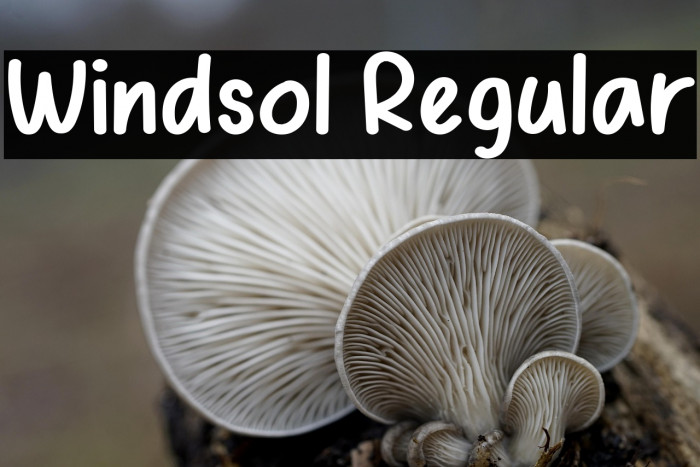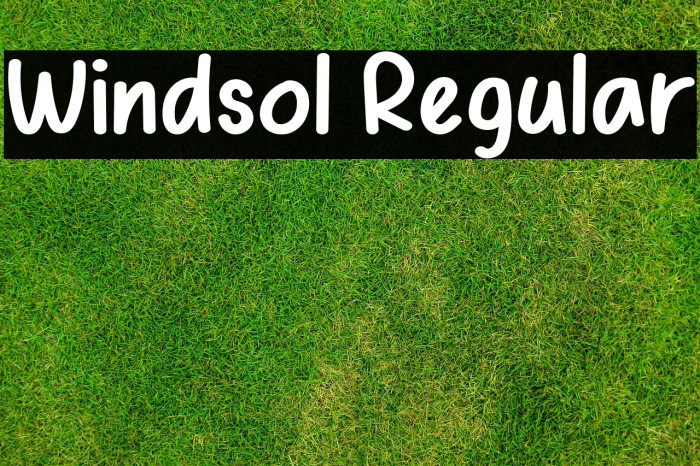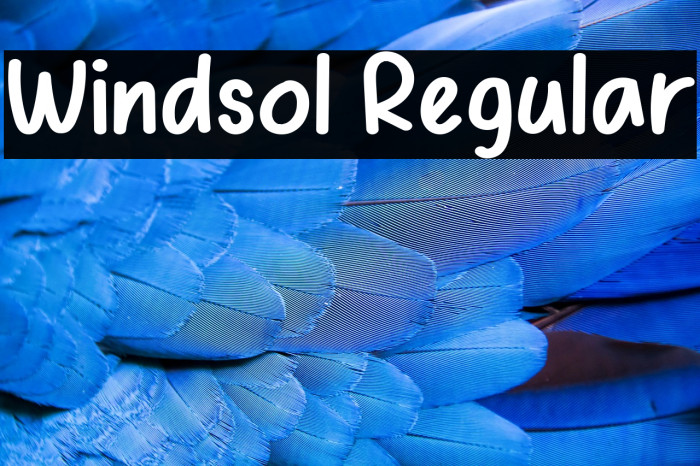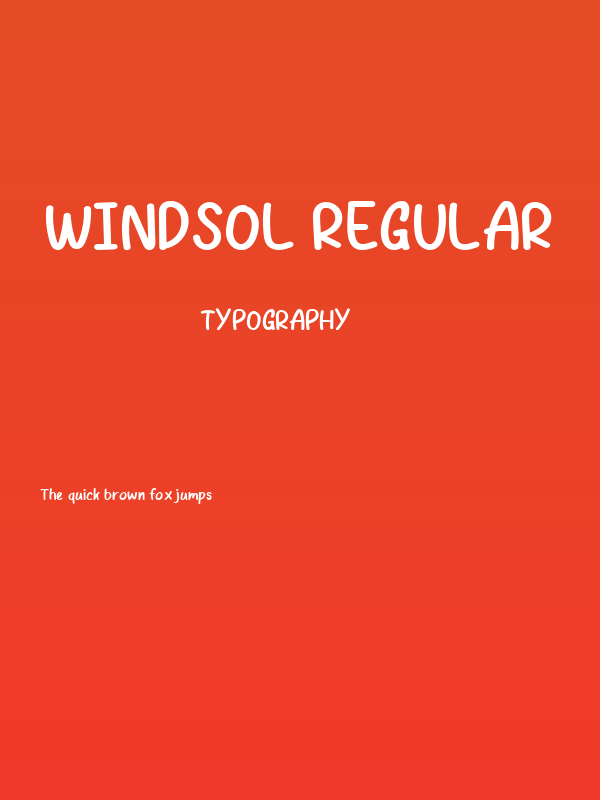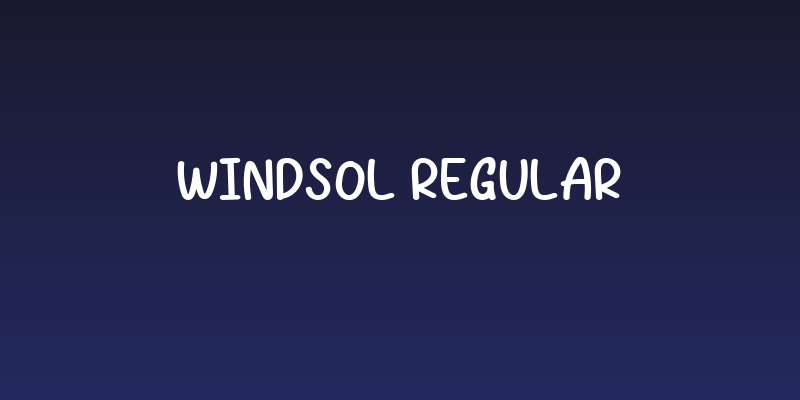
Windsol Regular Font
A playful and casual handwritten font with rounded edges and a friendly appearance.
| Overall Style | Casual, Friendly |
| Use Case | Headlines, Informal text |
| Proposed Projects | Greeting cards, informal invitations, children's books. |